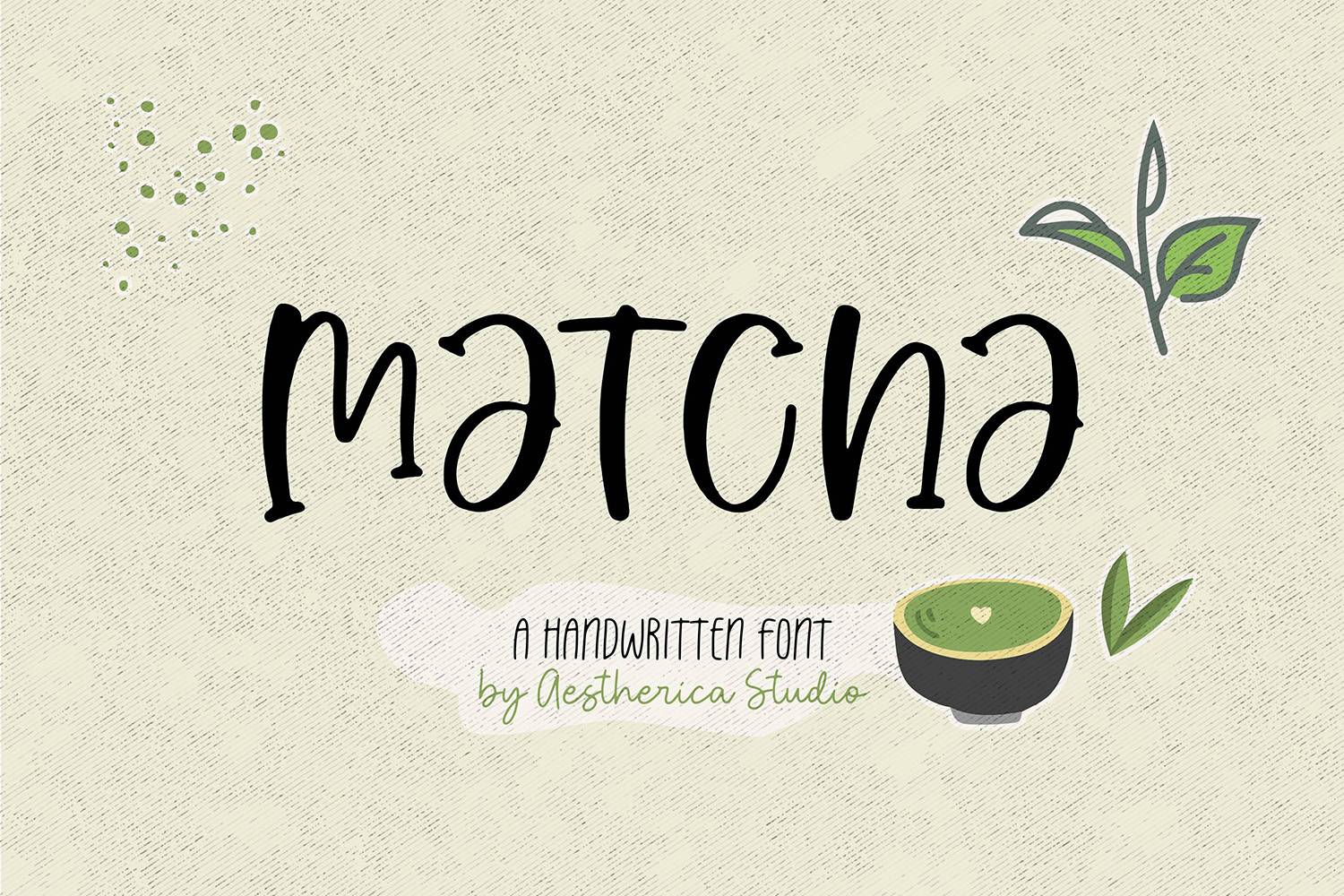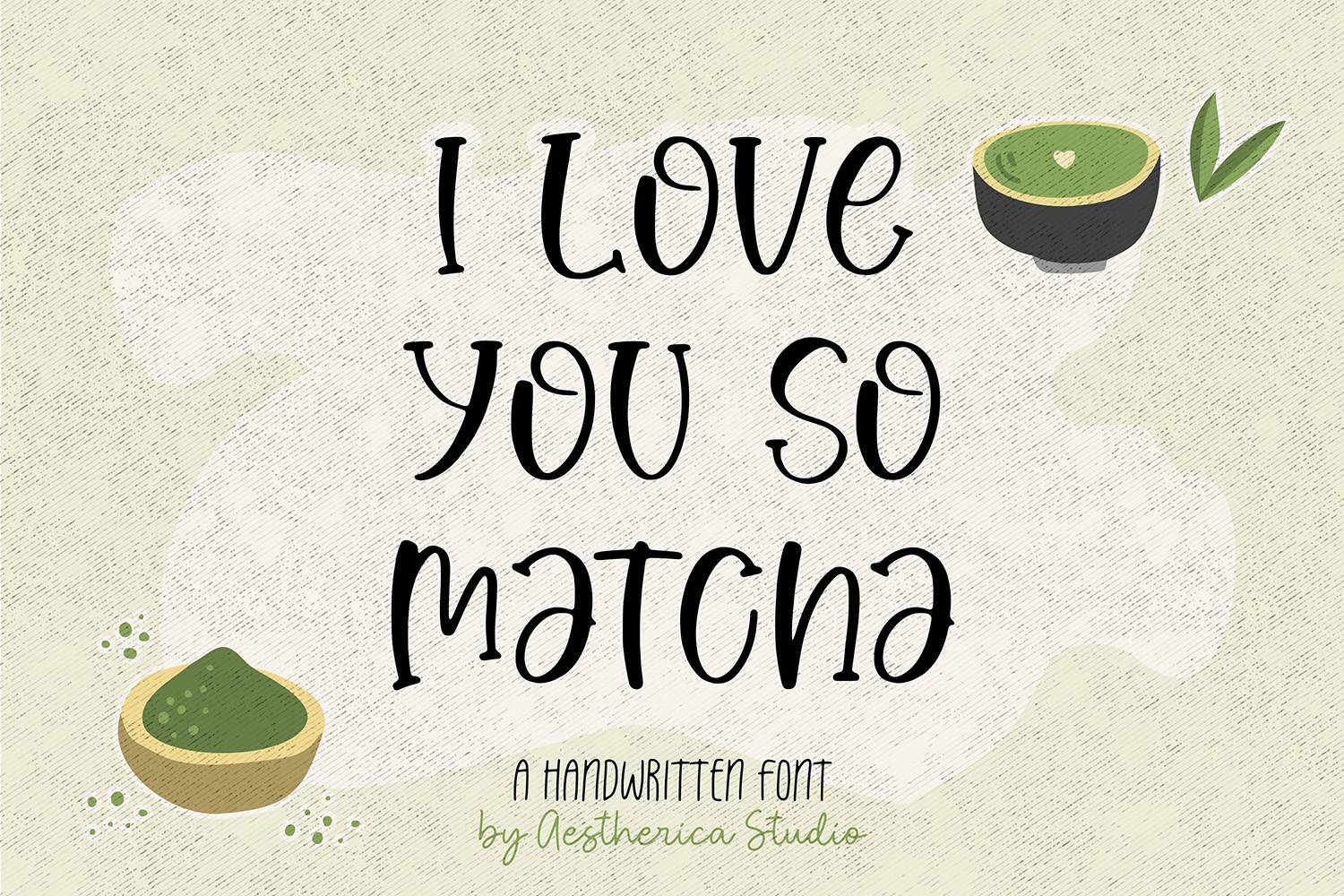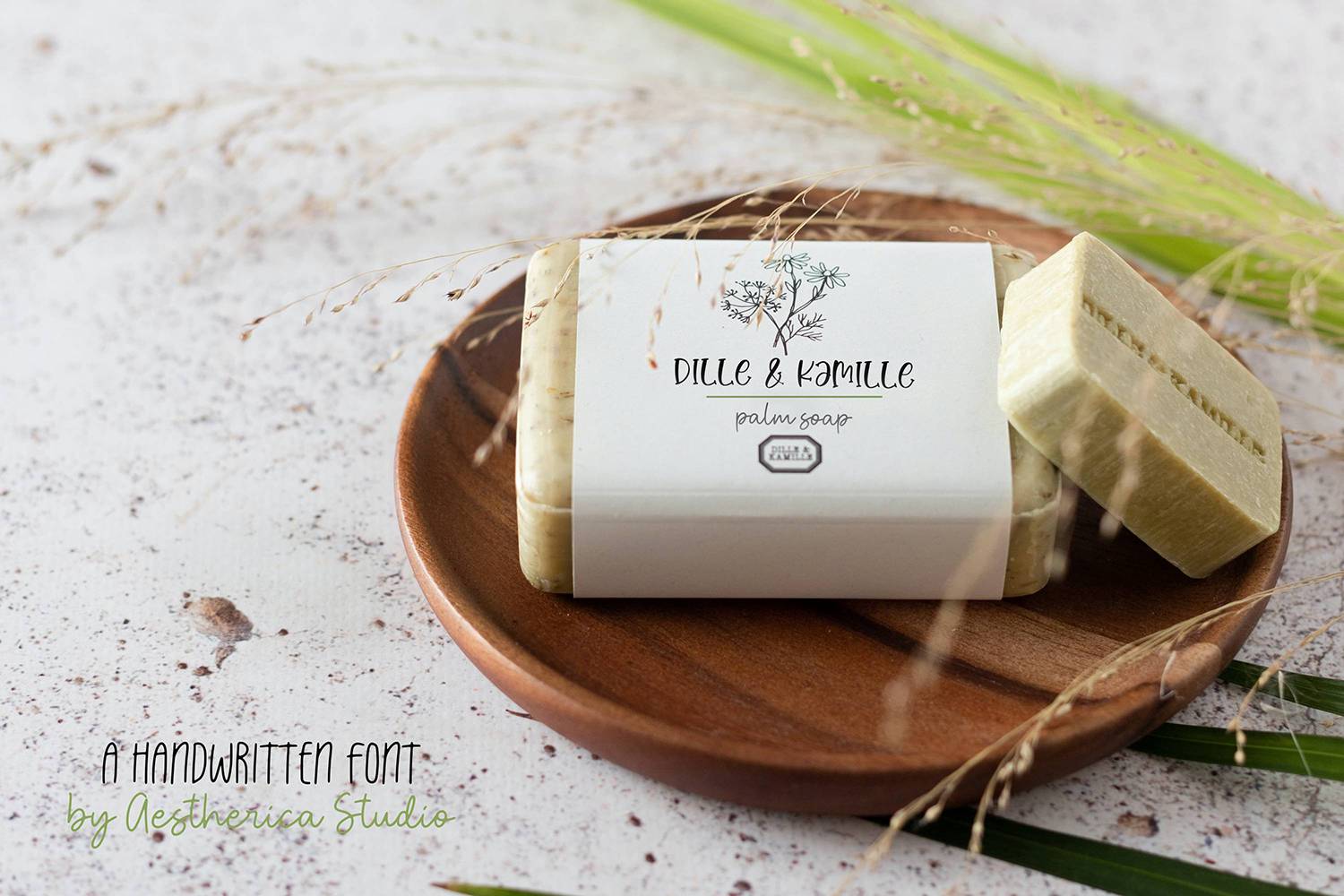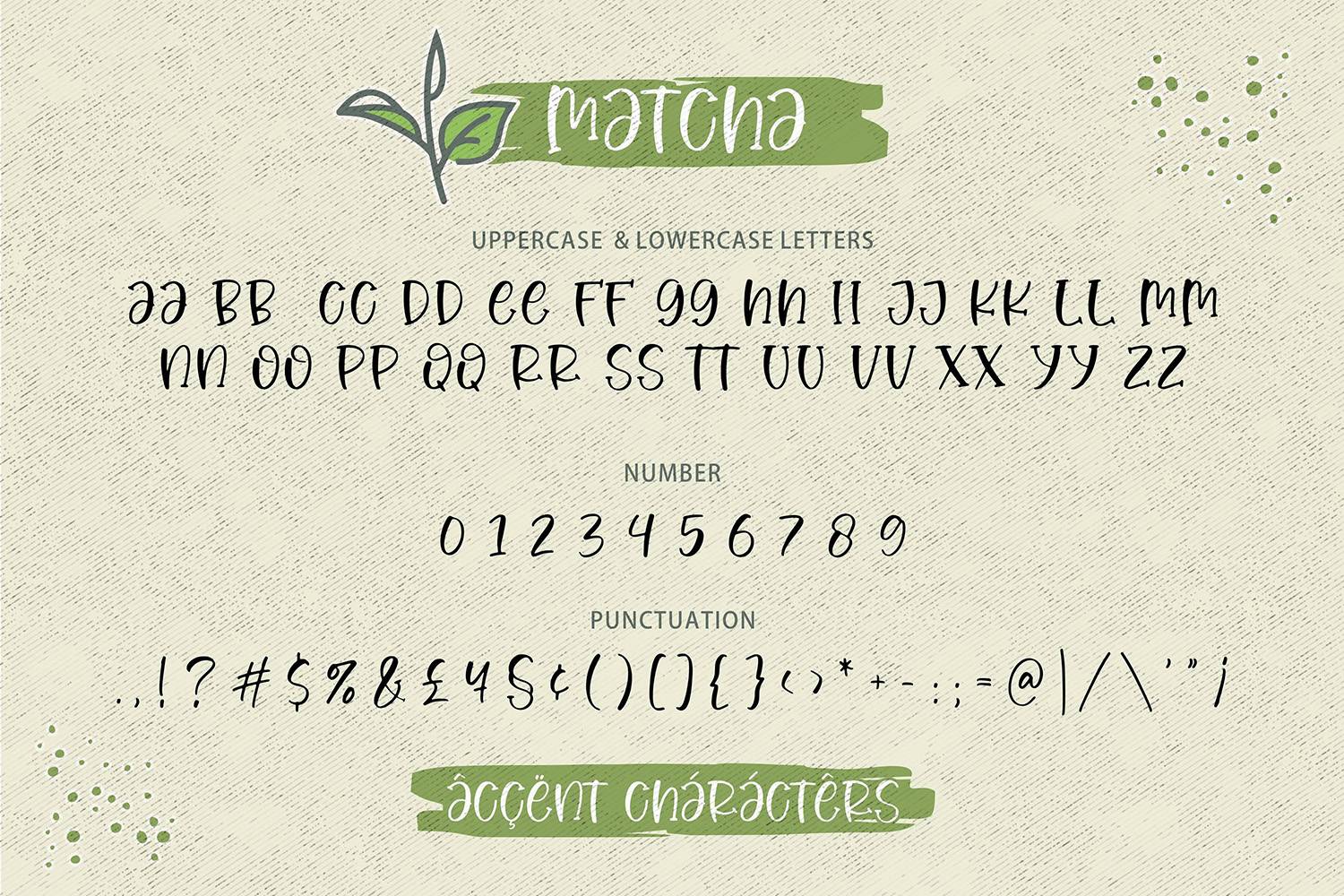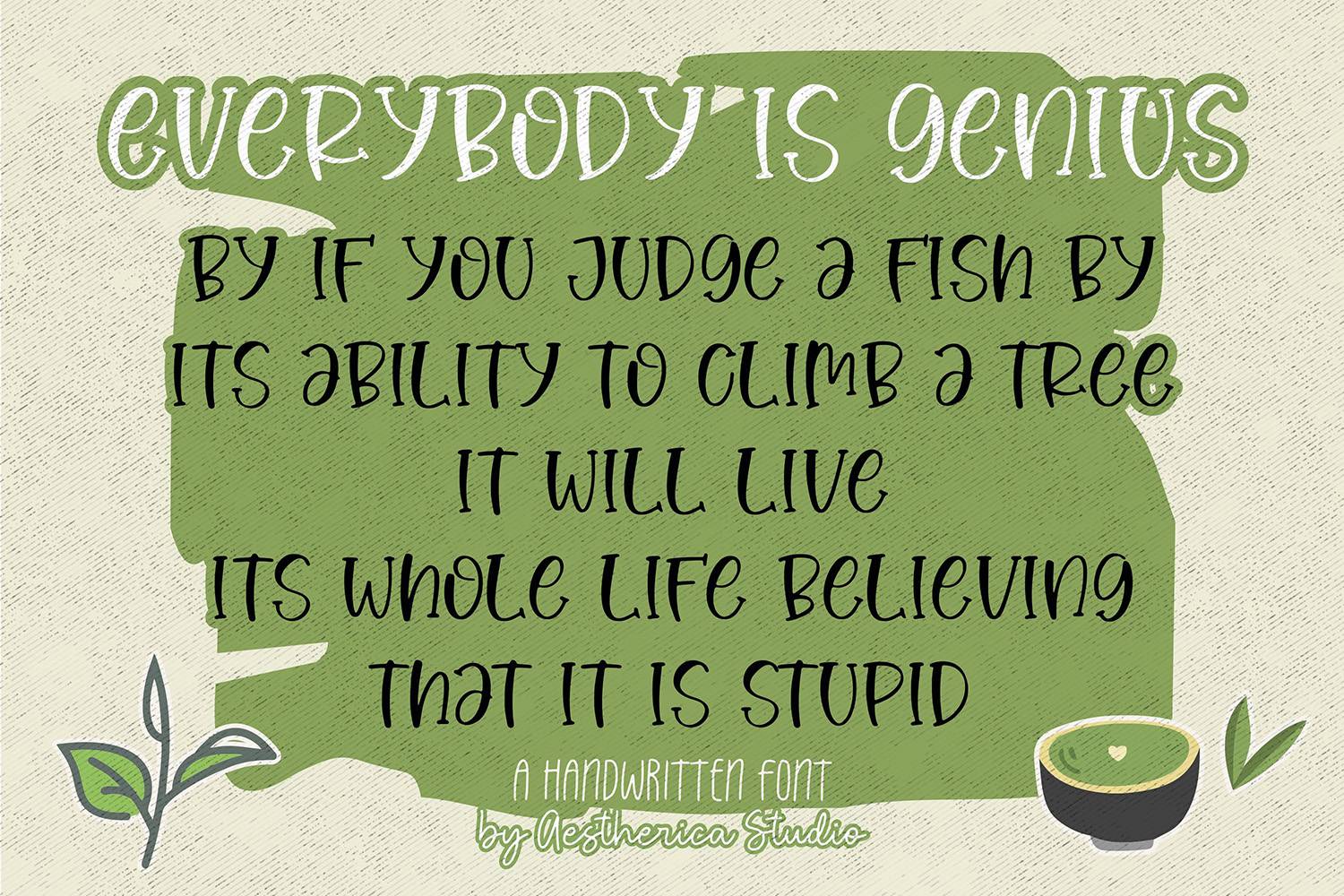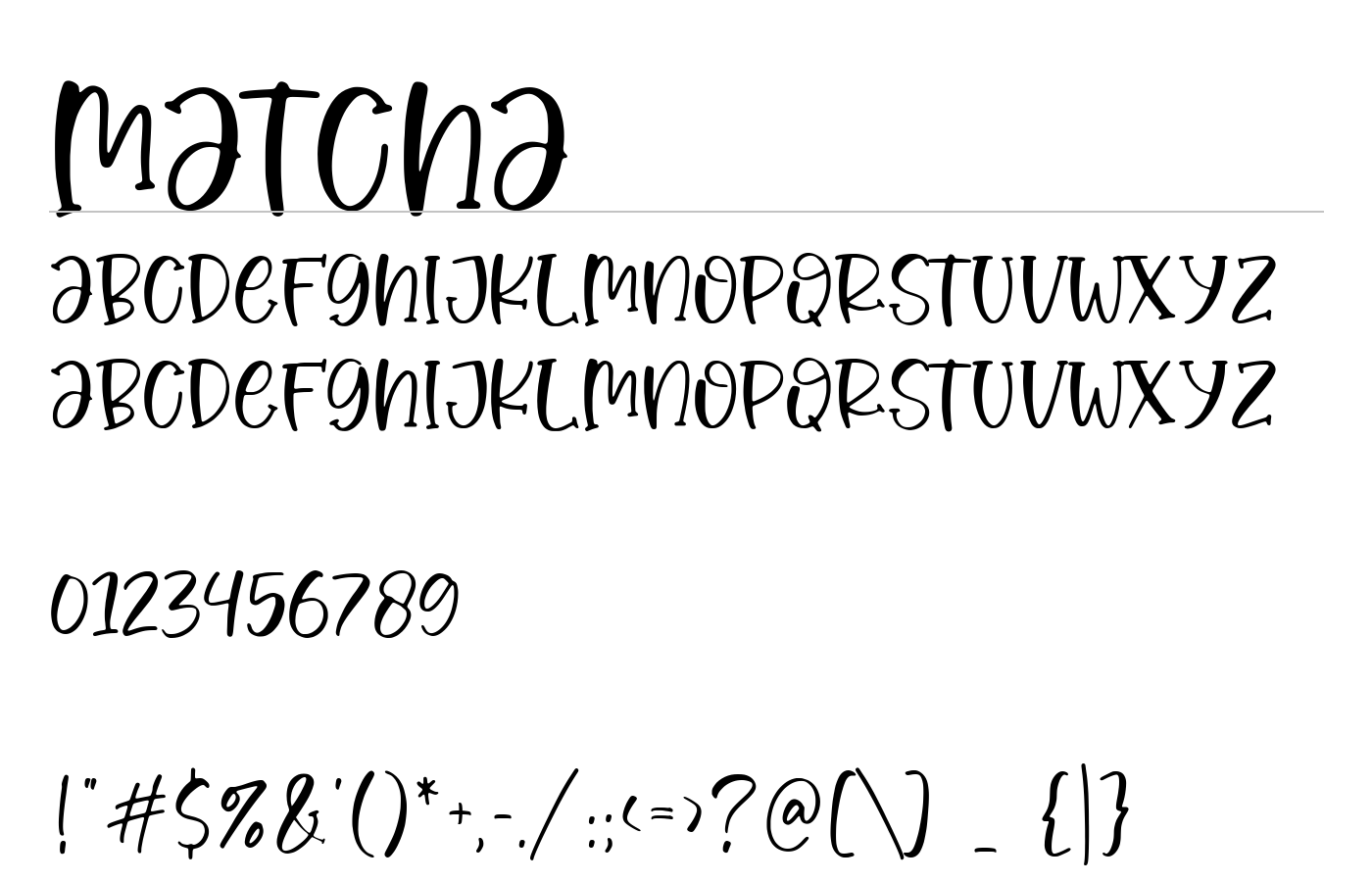
Matcha Font is a playful and casual handwritten typeface with a friendly and informal vibe. Its slightly irregular strokes and tall, narrow letterforms give it a unique and approachable character perfect for creative, fun, and personal projects. This font works well for logos, packaging, greeting cards, and social media designs where a warm and lively style is desired.
Matcha Font
About Matcha Font